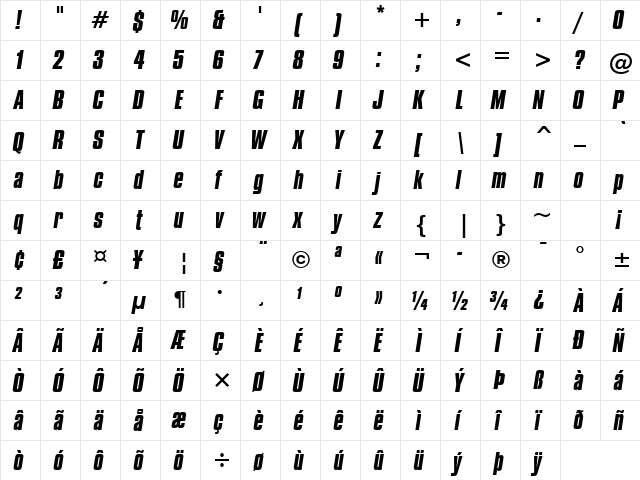
Compacta Bd BT Bold Italic Font Preview
Design Context for Compacta Bd BT Typeface
Compacta Bd BT is a composed and adaptable typeface that performs quietly and consistently across a wide range of design contexts. The dynamic lean of this cut emphasises speed and emphasis in any layout. Its bold stroke weight gives it real presence on the page. Its narrow stance lets it pack a punch even in space-constrained designs.